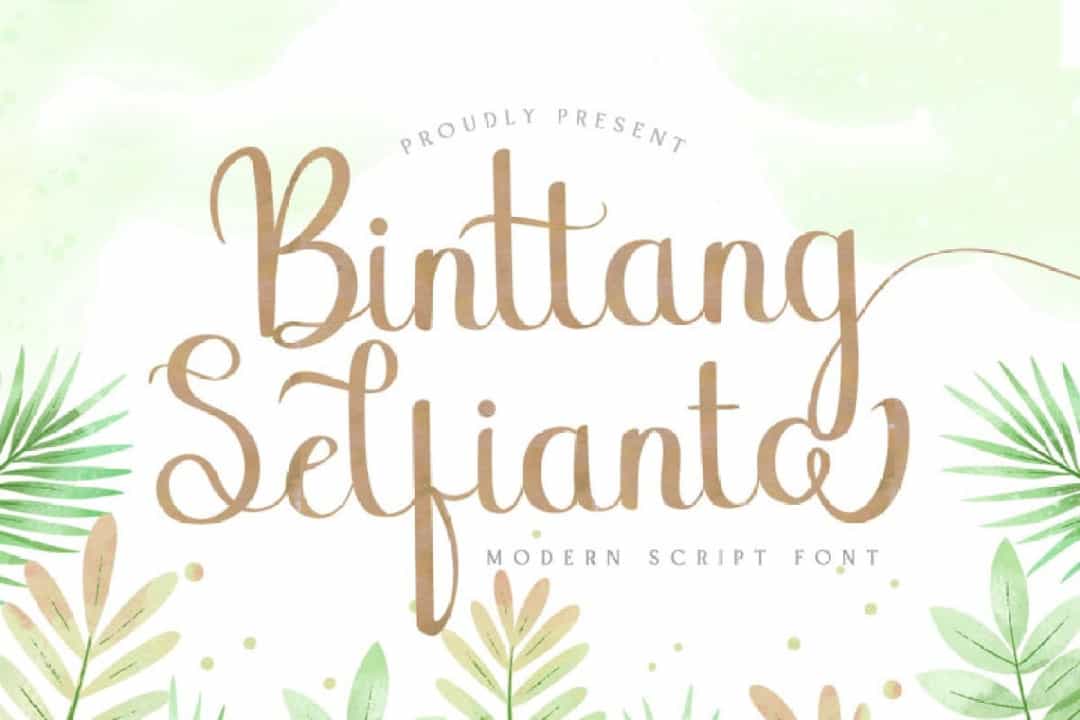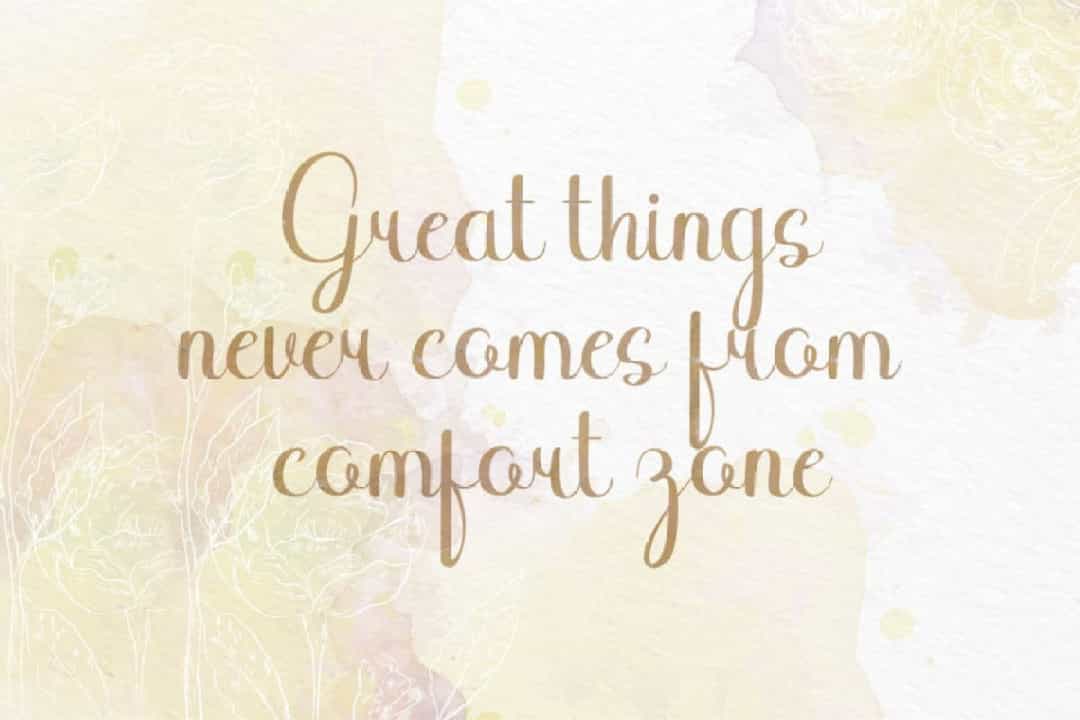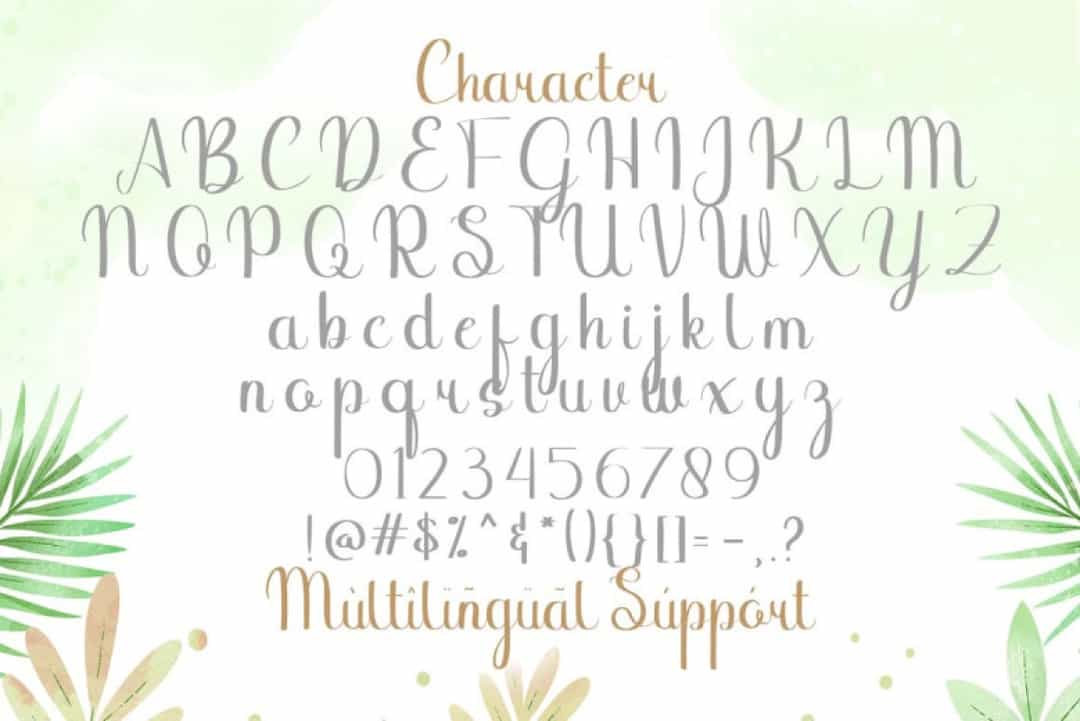
Specifically, Binttang Selfianto can be defined as script Typeface that has Calligraphy Style. If you are trying to find script fonts particularly that would blend well with calligraphy and DIY-related projects, Styll Love can certainly transform whatever concept you have in your mind into an artwork.